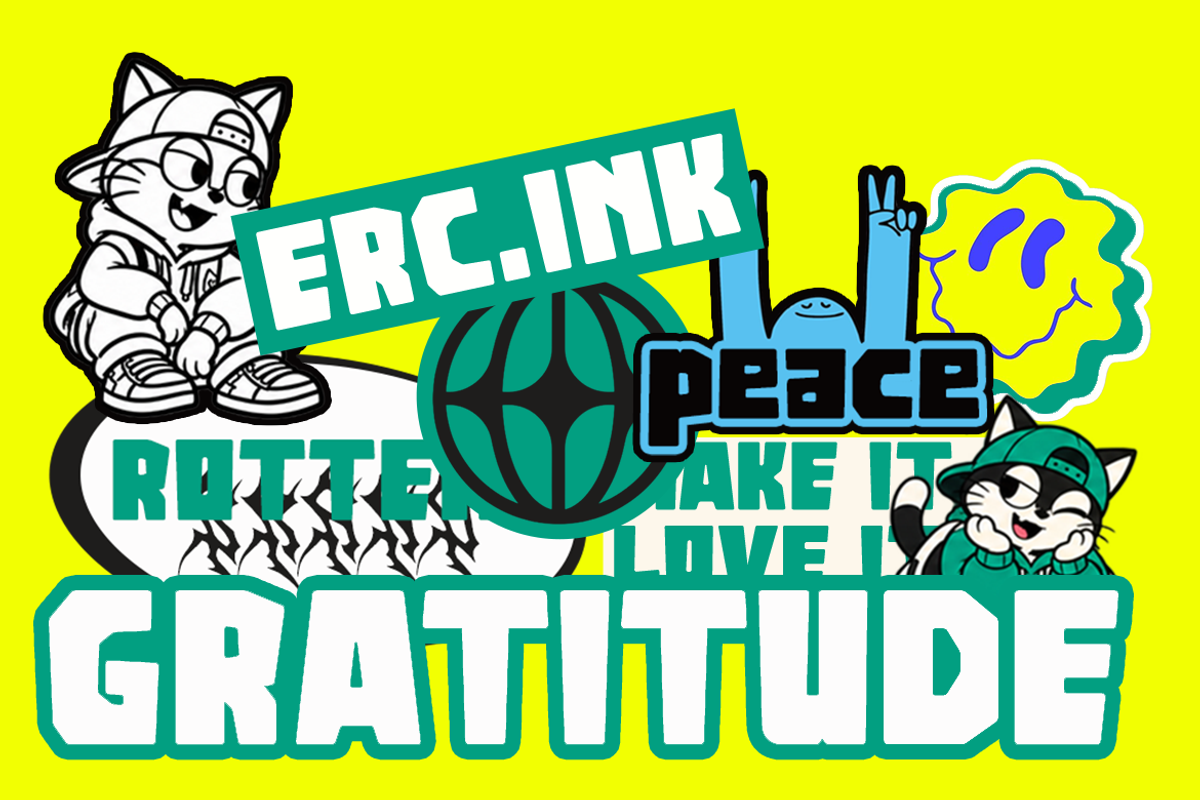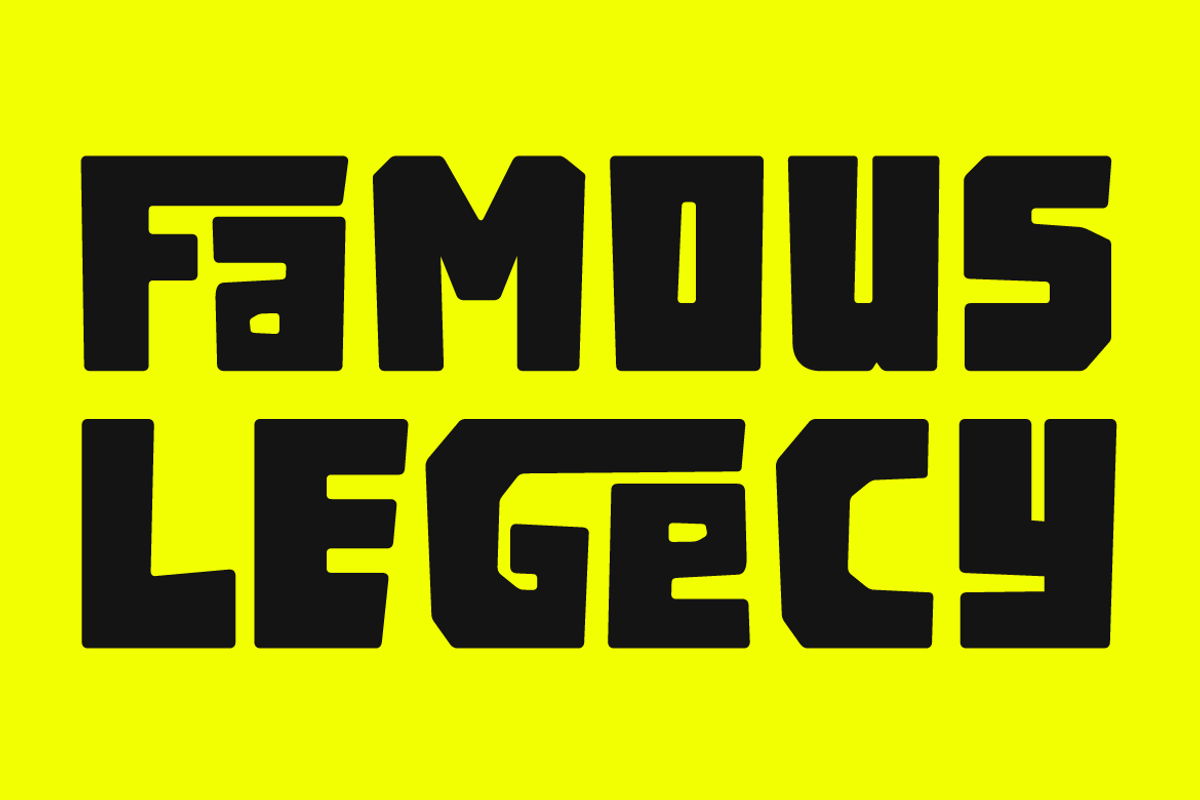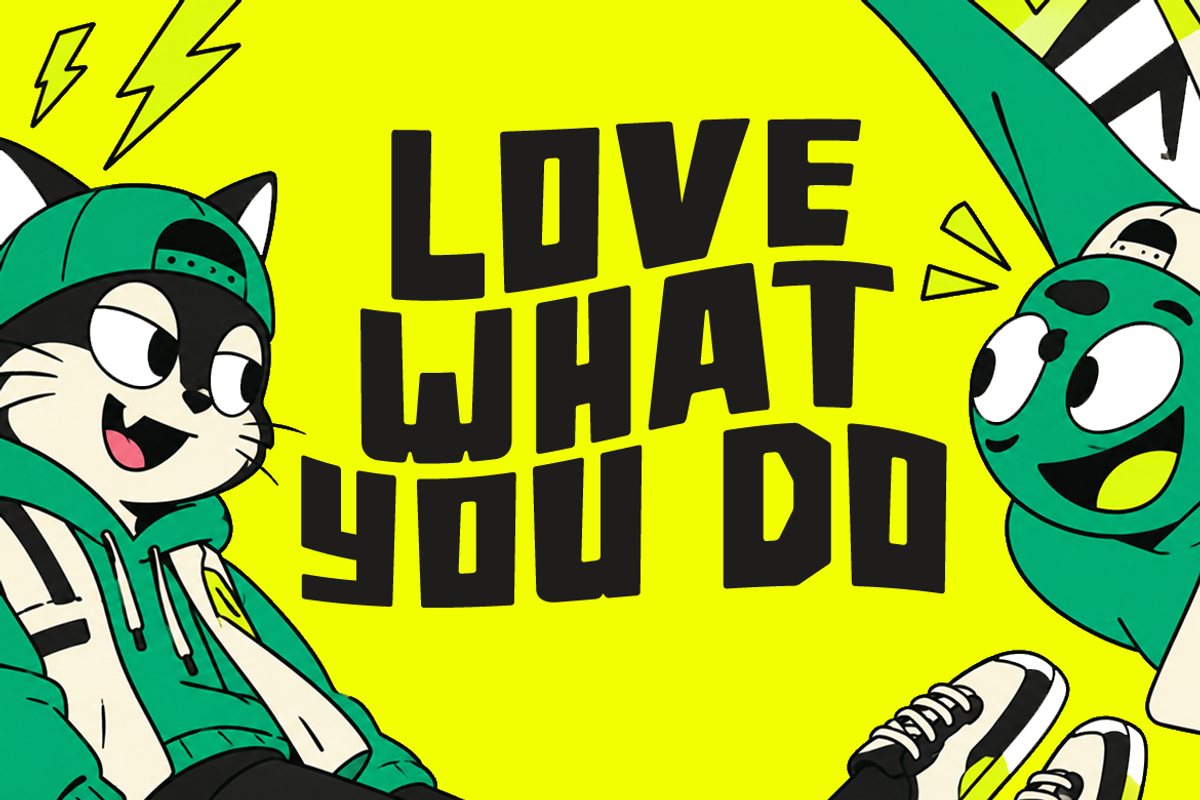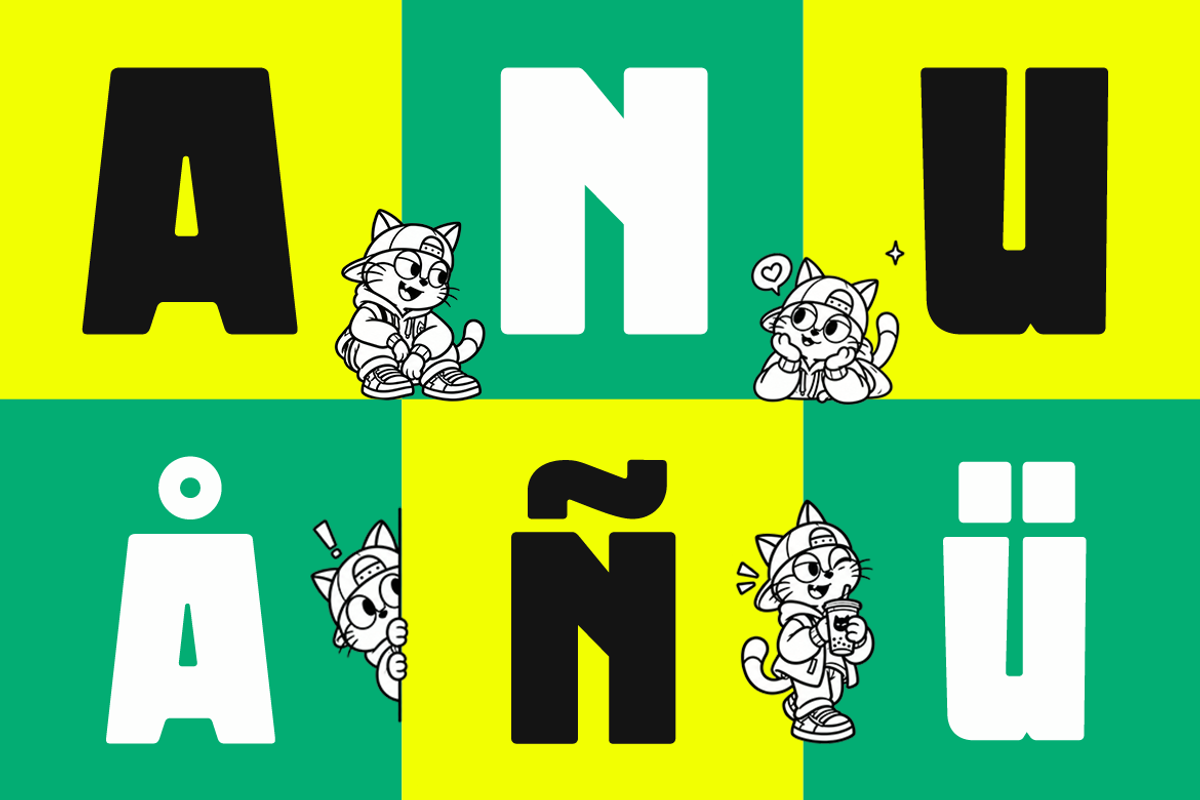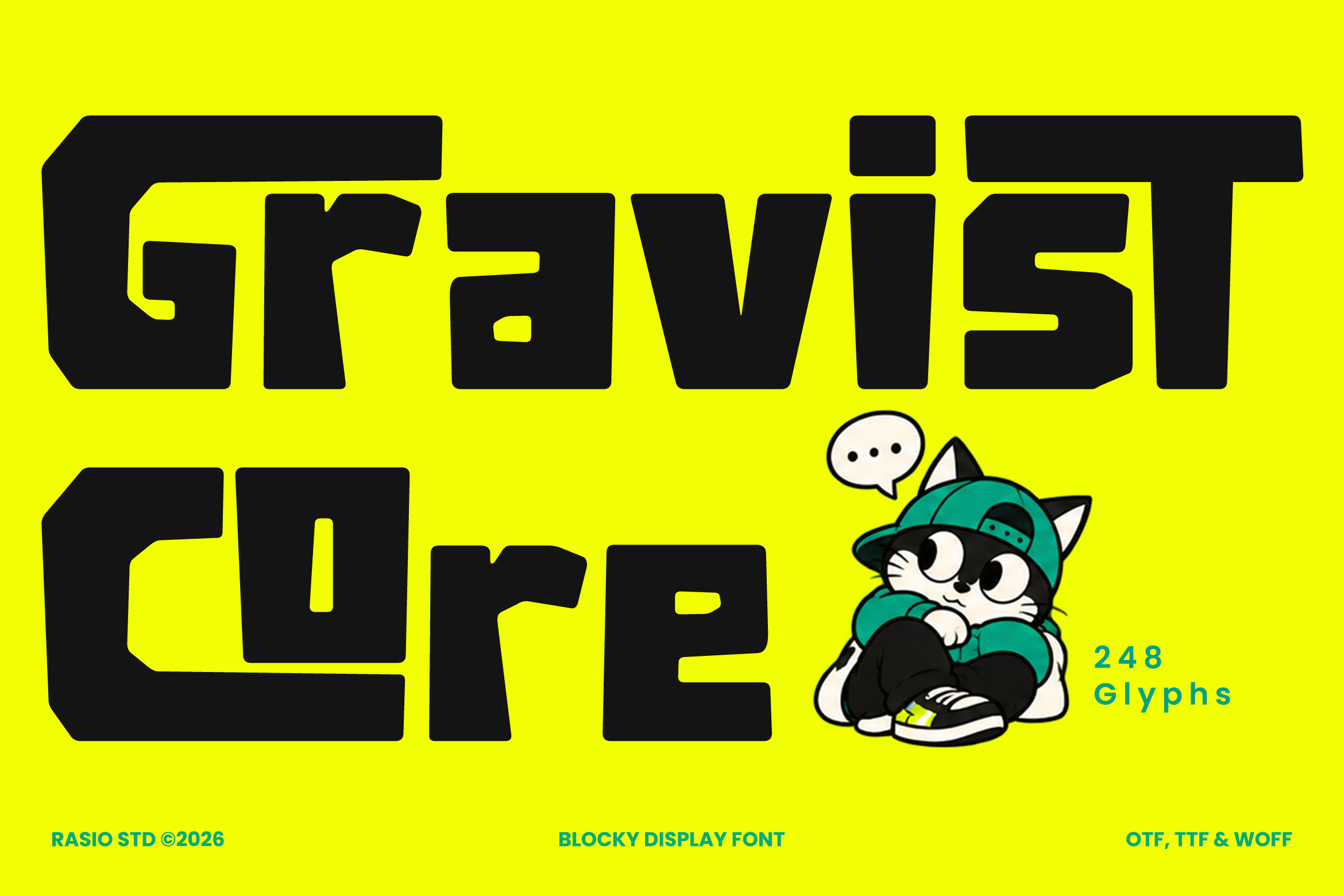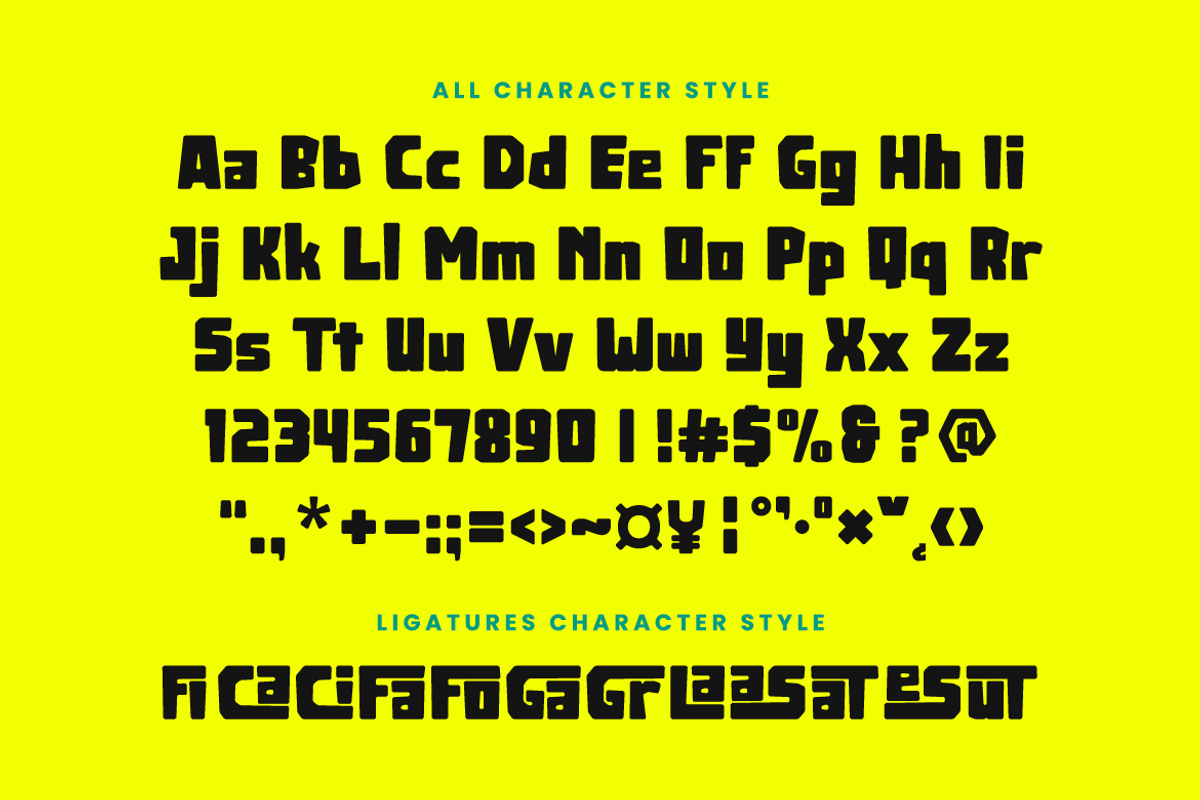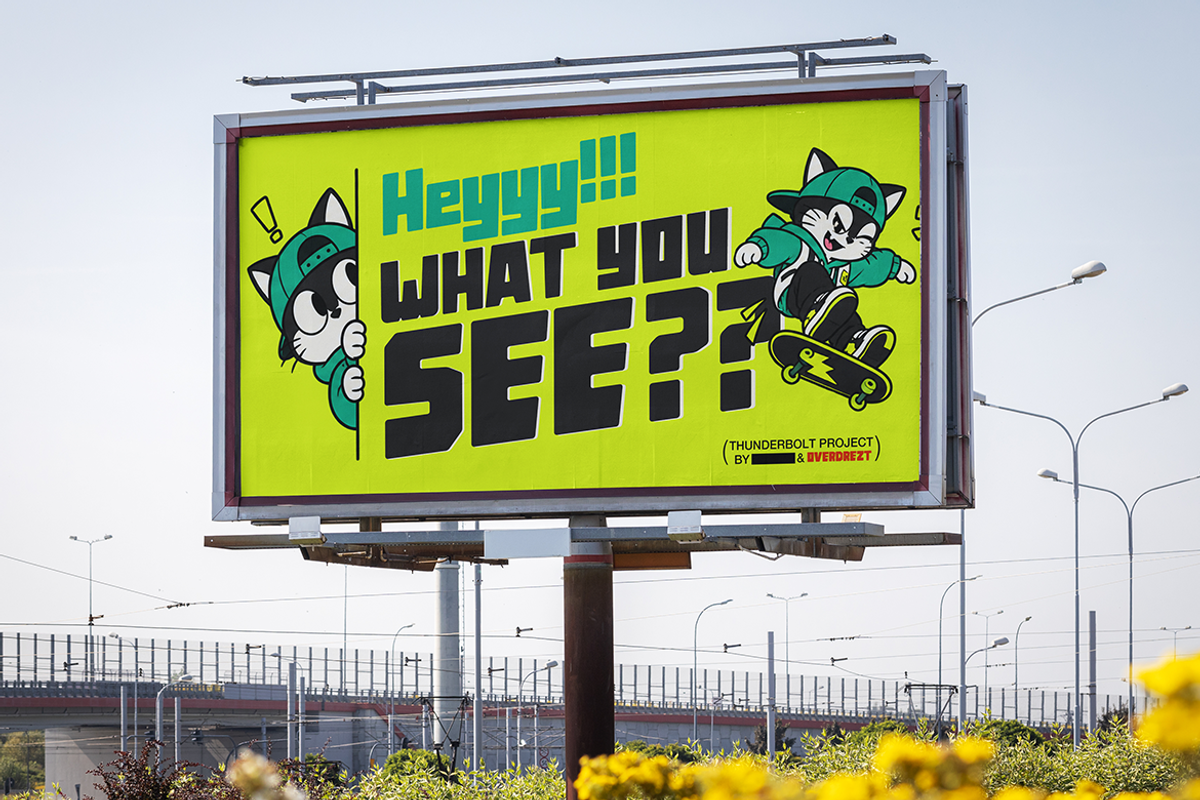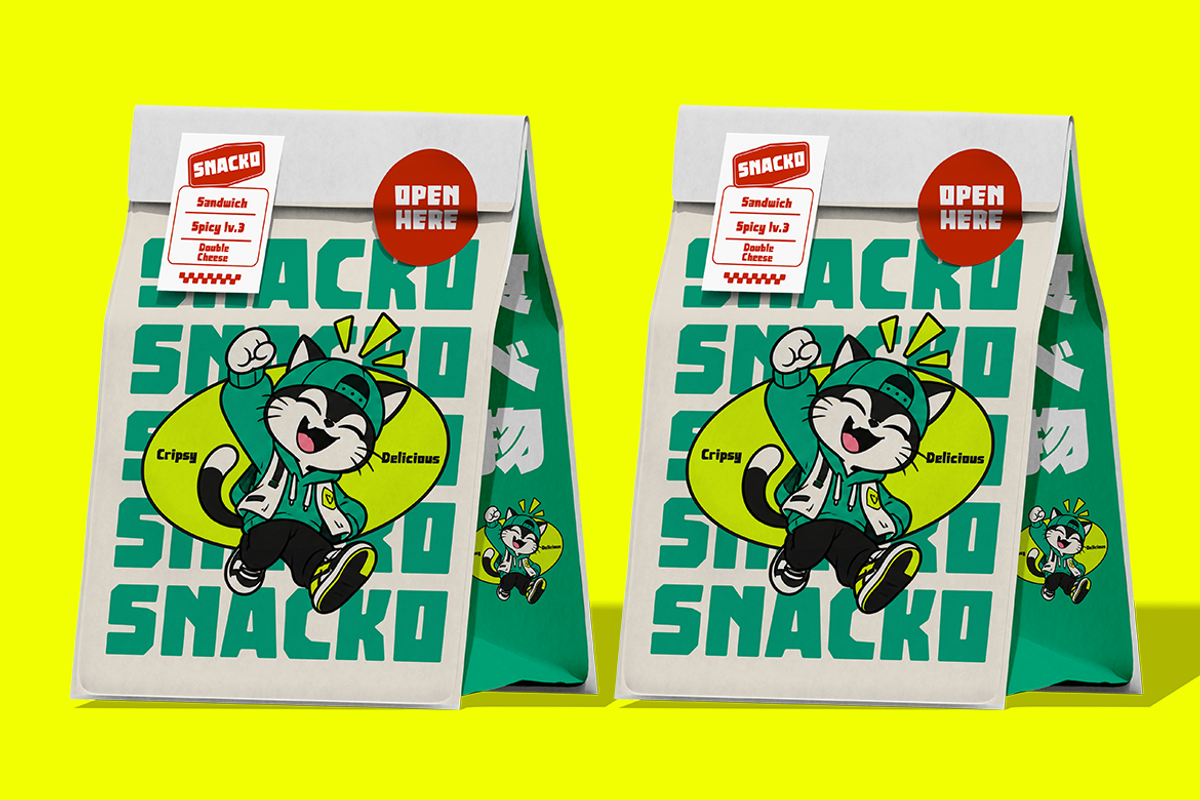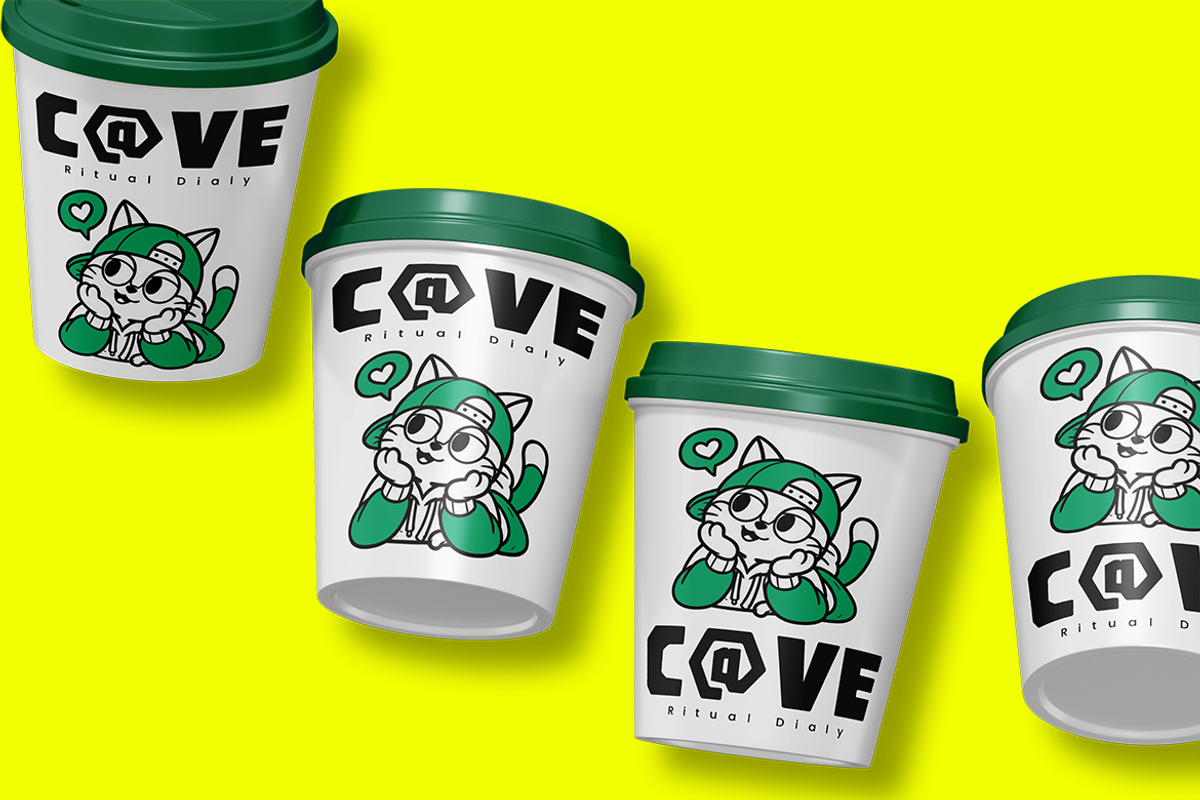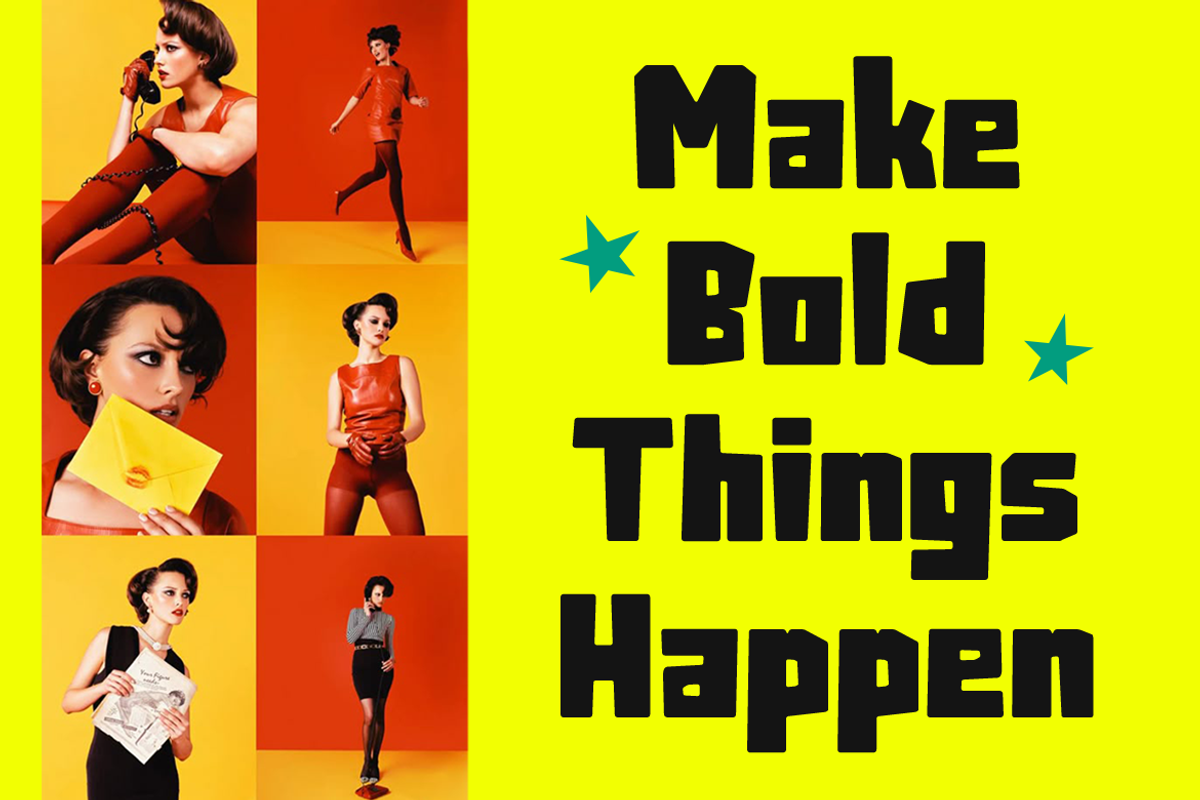
Gravist Core Blocky Display Font
Gravist Core Blocky Display Font is a bold blocky display typeface designed with chunky geometric letterforms, compact proportions, and distinctive angular cuts. Its characters feature heavy strokes, squared corners, unconventional inner counters, and irregular structural details that give the font a playful yet powerful visual personality. The bold construction creates strong silhouettes even at smaller display sizes, while the unique shapes and integrated details make individual letters immediately recognizable. The font includes 248 glyphs with uppercase and lowercase characters, numerals, punctuation, symbols, and stylistic ligatures.
Gravist Core is built for expressive typography where the lettering needs to become a central part of the visual identity. Its chunky appearance works especially well for gaming graphics, streetwear branding, posters, stickers, merchandise, packaging, album artwork, social media graphics, titles, and youth-oriented campaigns. The included ligature styles add extra personality to selected letter combinations, allowing designers to create more distinctive wordmarks and custom-looking headlines. OTF, TTF, and WOFF formats provide flexibility for both graphic design and web-based applications.
Chunky block-based construction with a strong, compact visual presence
Squared and angular corners create a distinctive graphic silhouette
Irregular cuts and geometric details give the characters a playful personality
Heavy strokes maintain strong visibility in headlines and large display compositions
Compact proportions allow words to form dense and impactful typographic blocks
Gaming and arcade branding for bold titles, game identities, and promotional graphics
Posters and stickers where chunky lettering can become the main visual element
Streetwear and merchandise including apparel, prints, badges, and graphic designs
Packaging and product labels for fun, youthful, and attention-grabbing products
Logo and wordmark design for brands seeking a distinctive blocky typographic style
Supports numerals, punctuation, and extensive symbol set